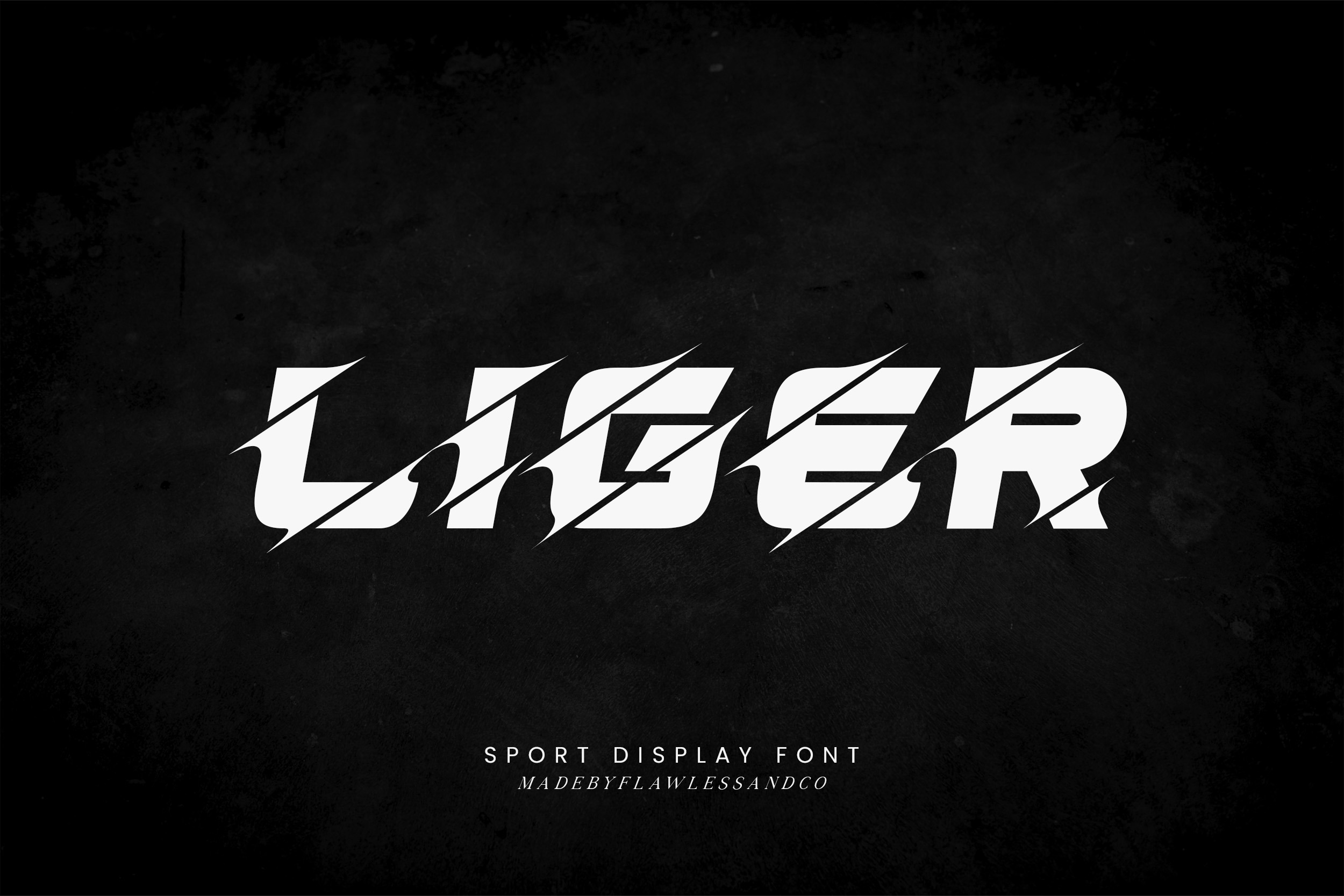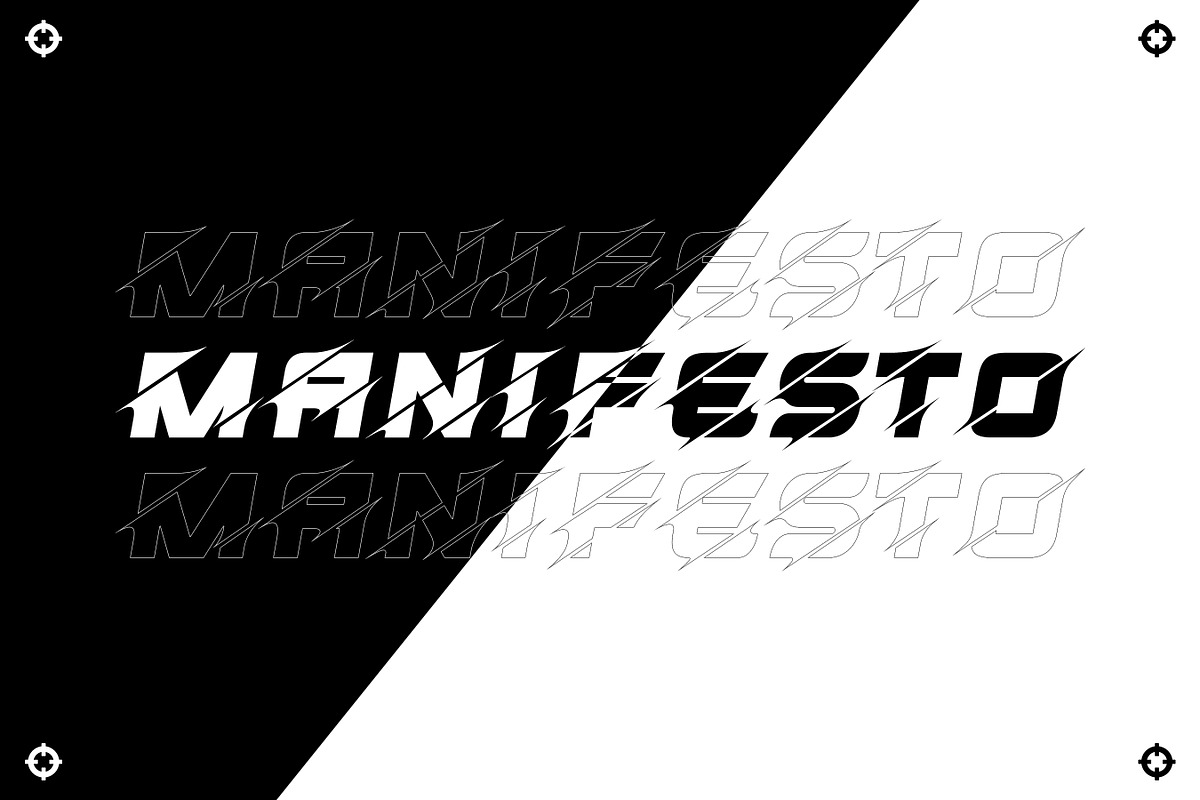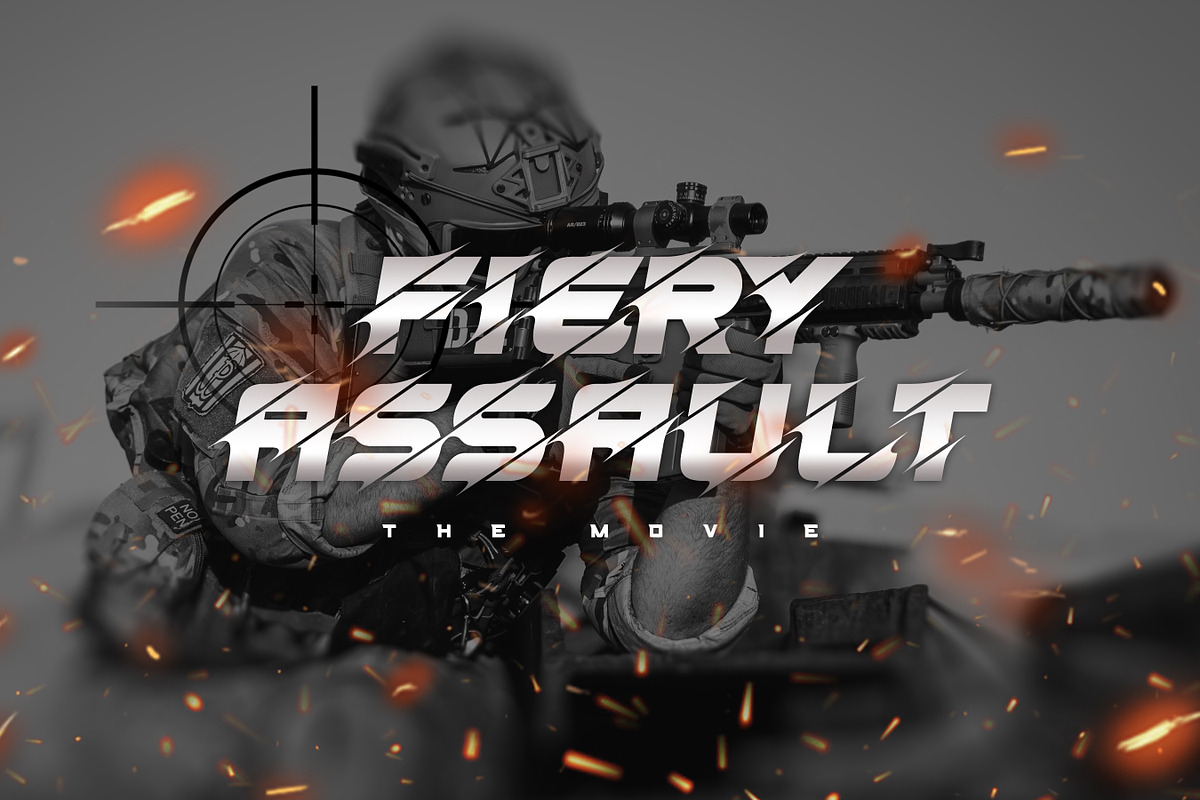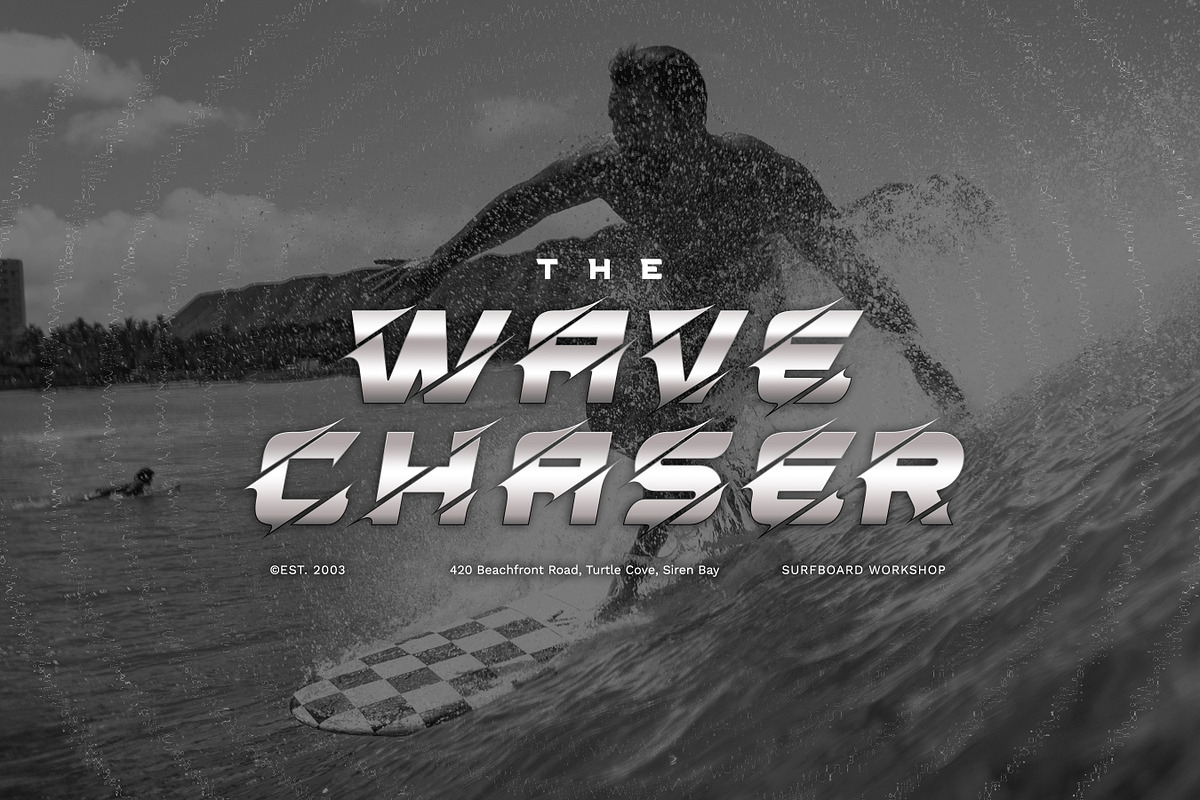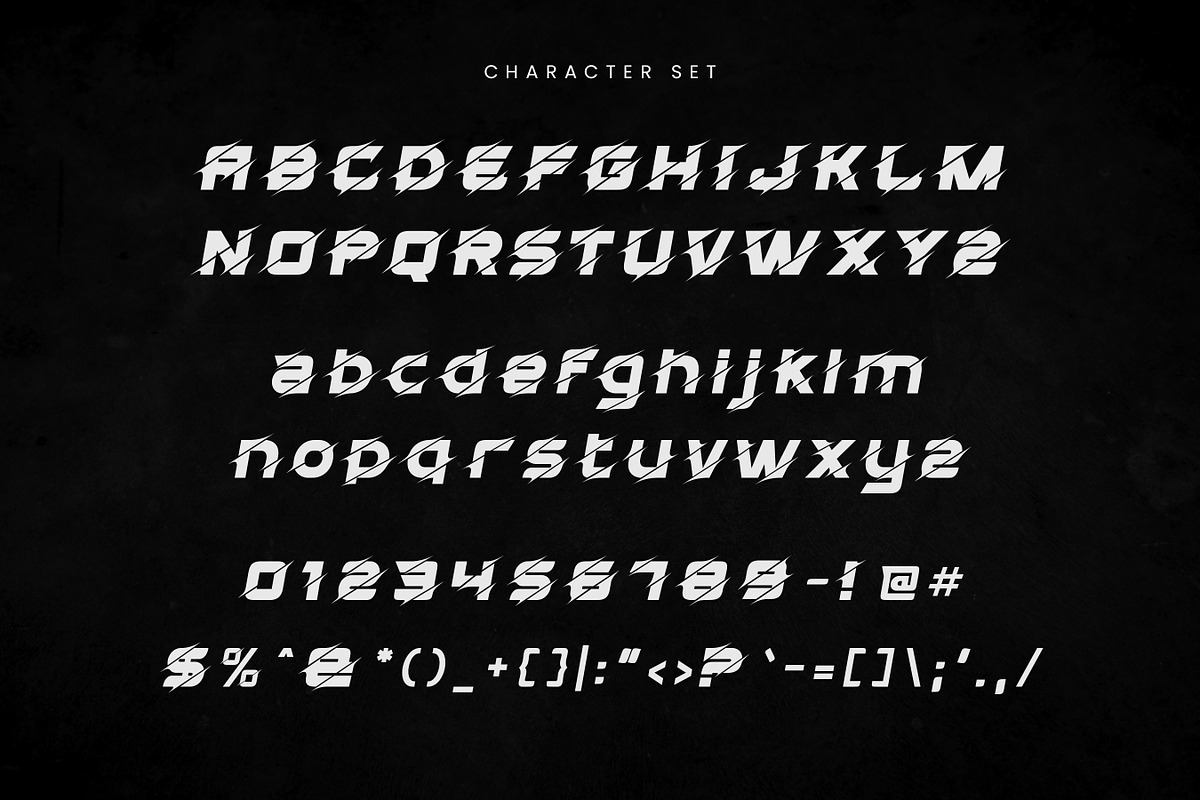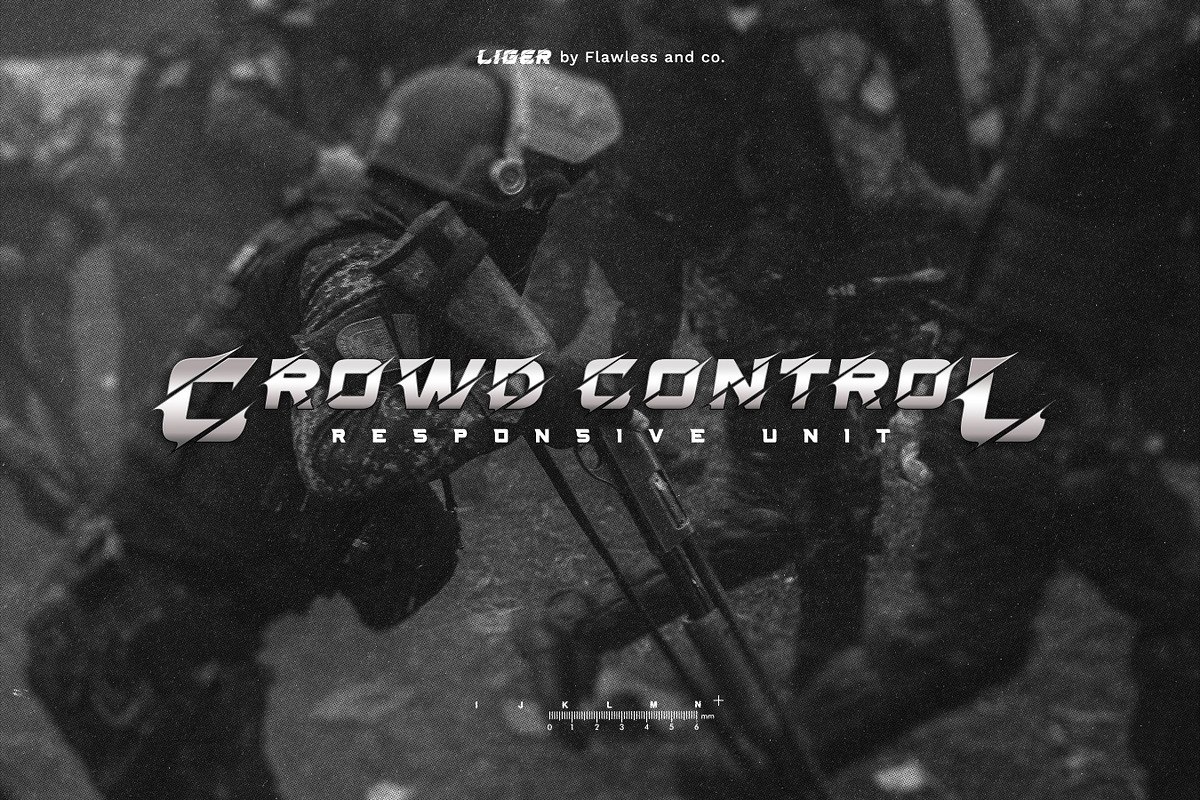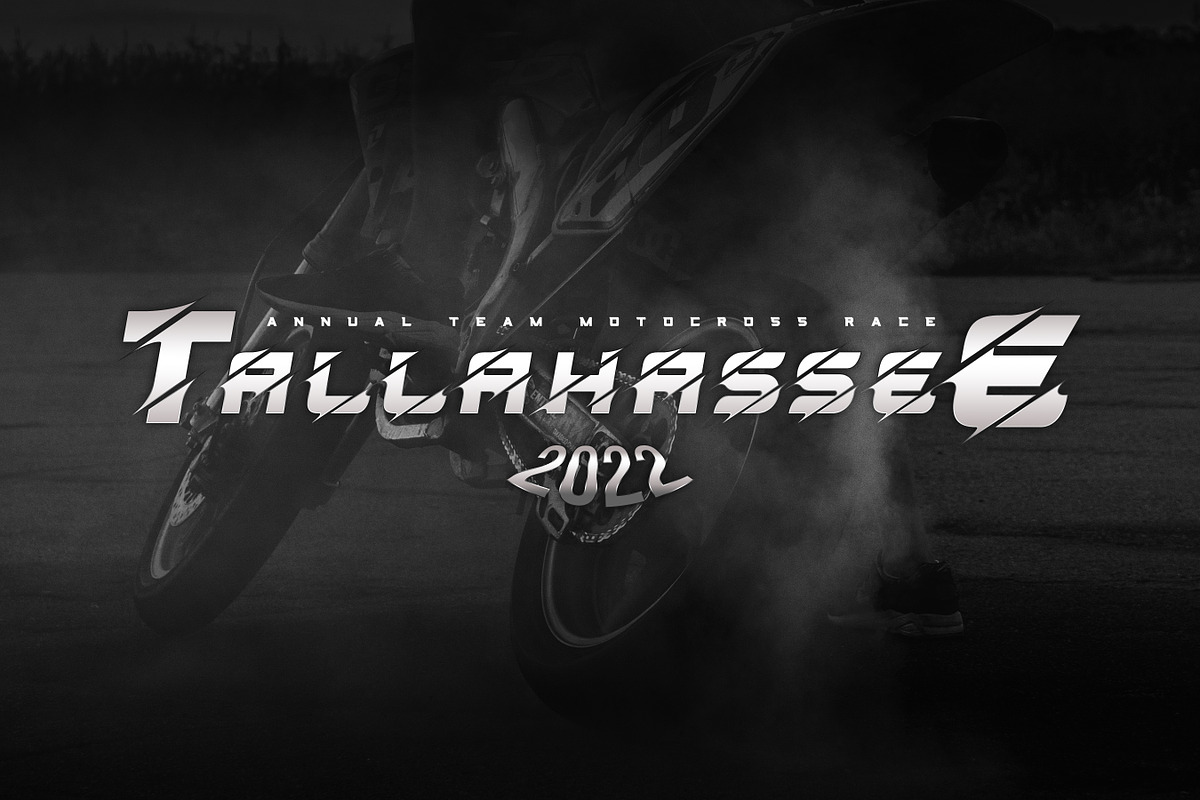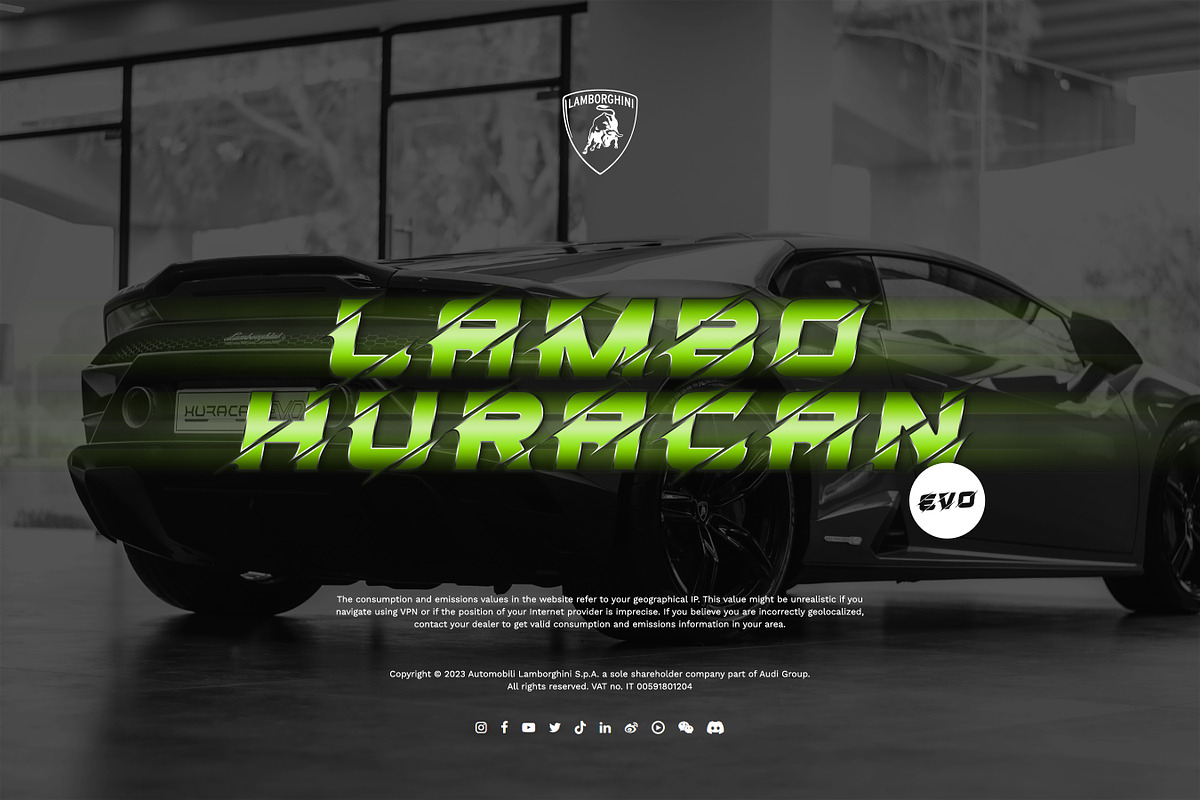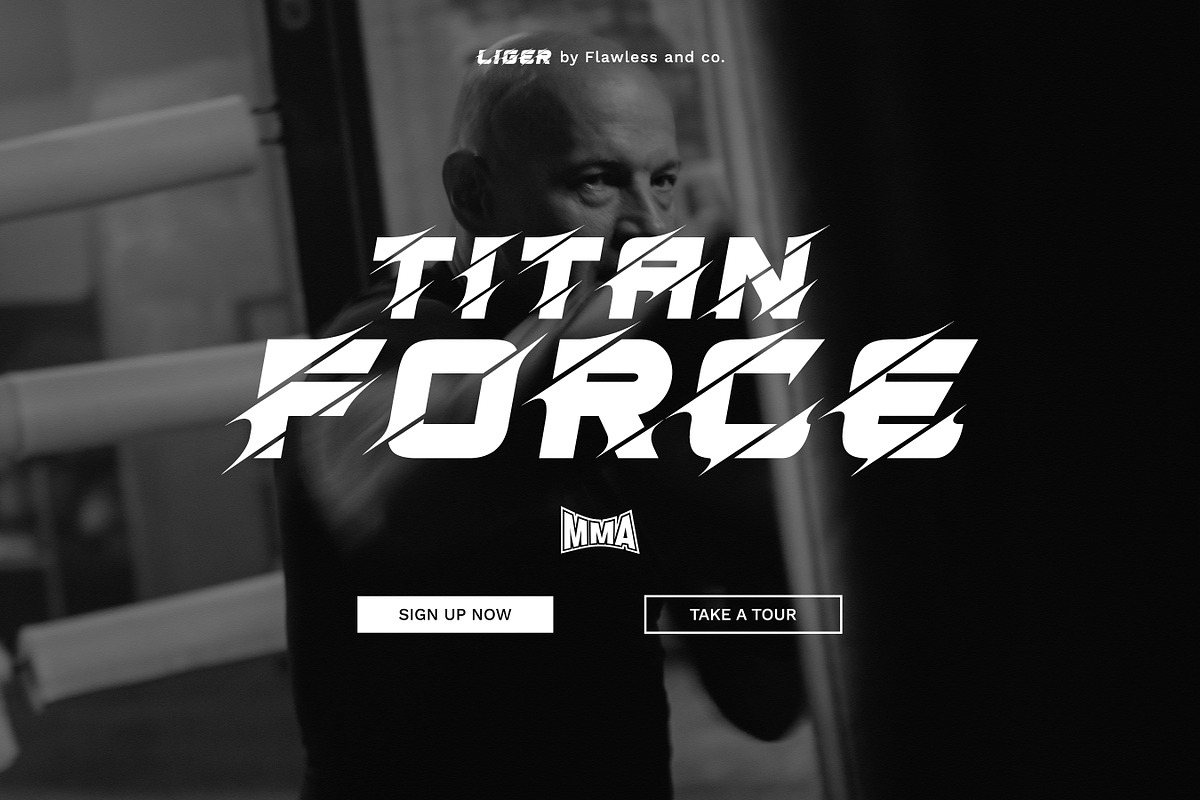
Liger - Sport Display Font
Introduction our creation "Liger" is sport display font, Modern Font with Elegant Style suitable for branding, business, logos, magazines, and others
Multilingual Uppercase alphabet A-Z Lowercase alphabet a-z Italic alphaber 1-z Alternate Character Numbers 0-9 Some punctuation